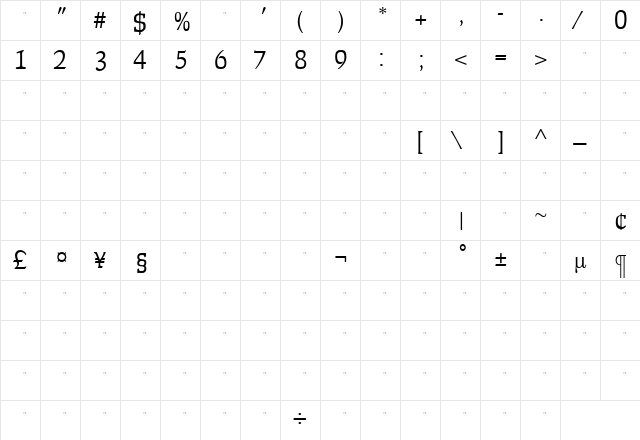
FaustLightTab Roman Font Preview
FaustLightTab Roman
Design Context for FaustLightTab Typeface
FaustLightTab offers clean, dependable letterforms without strong stylistic allegiance, making it a practical choice for designers who need flexibility. The delicate stroke weight brings airiness and refinement to layouts.